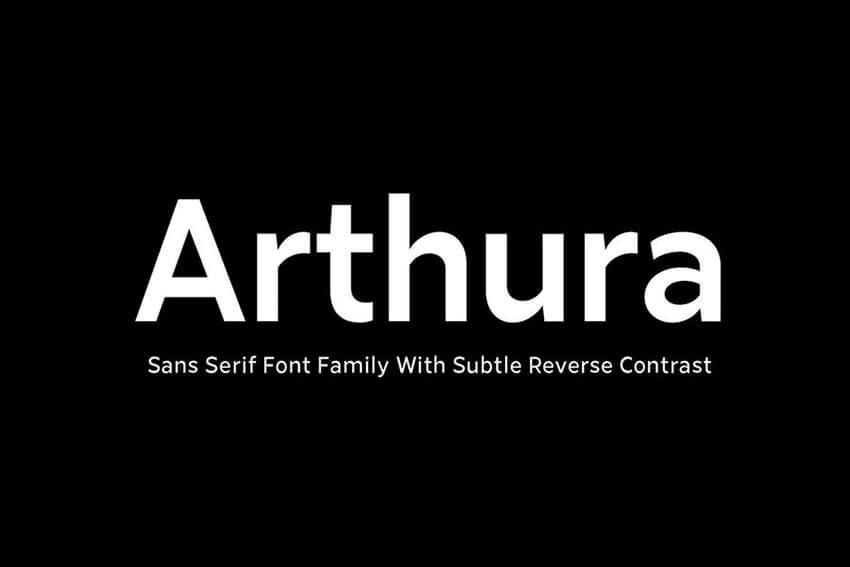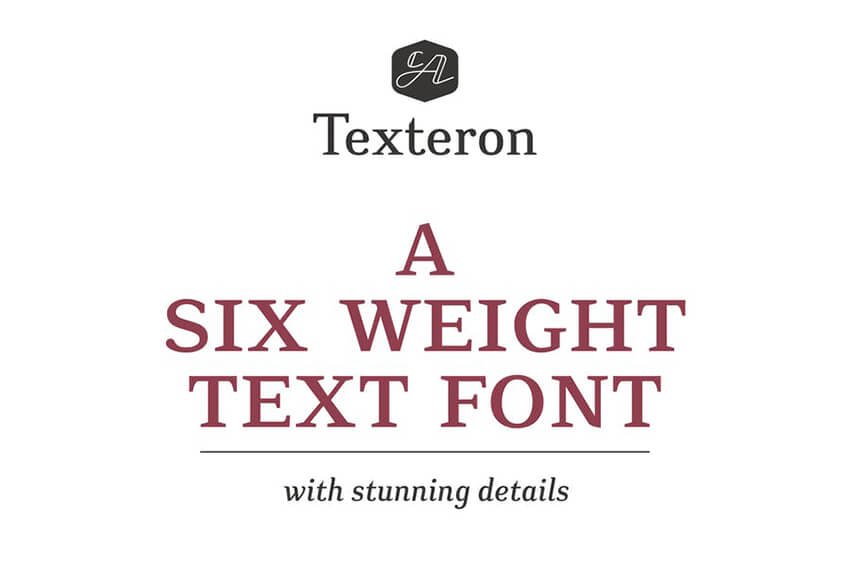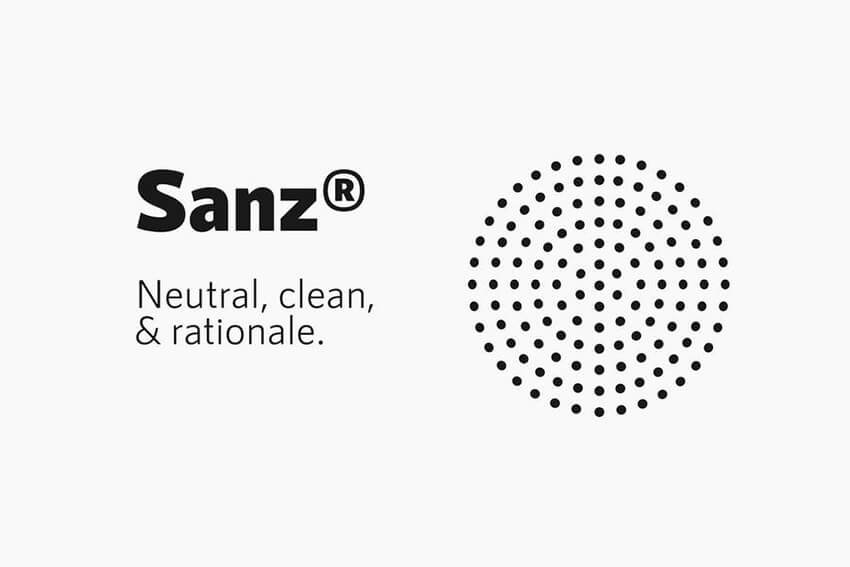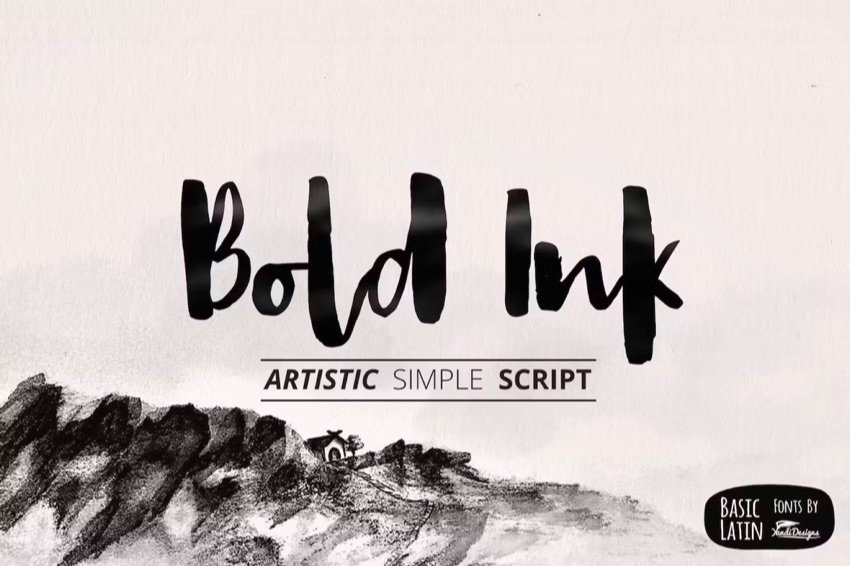
What Are the Best Fonts to Use in PowerPoint PPT Presentations? (Complete 2025 Guide)
What is the best font for PowerPoint presentations? Typography helps you set the tone. Learn the best font size and type for your PowerPoint slide decks.
If you’re giving a PowerPoint presentation, you’ve got many design decisions to make. One of those is choosing the best fonts for PowerPoint presentations. Typography sets the tone for your presentation and is instrumental in presenting your content.
So, what is the best font for PowerPoint presentations? In this tutorial, we’ll survey the best font for PowerPoint designs but leave plenty of room for creative choice.
We’ll discuss the best font size and type for PowerPoint presentations. Learn how you can use them to your advantage. You might be surprised how many PowerPoint font options exist.
Also, we’ll share some PowerPoint templates that make good use of the best fonts for presentations and typography.
Choose the Right Fonts for PowerPoint (Quickstart Guide)
Are you looking for the best PowerPoint fonts, but aren’t quite sure how to make the choice? The video below will help you make the choice.
To learn even more about fonts for PowerPoint and other presentations, continue reading the tutorial below.
The Essentials of Font Selection
Fonts for PowerPoint can take many forms. And with thousands of PowerPoint font options, it can be really hard to decide.
What style is right? How should you steer your PPT best font decisions? In this section, I’ll share some quick tips to help you choose the best PowerPoint font for you.
1. Understand the Types of Fonts
When you’re choosing the best font for PowerPoint slides, it’s key to learn some ground rules of style. And it helps to understand the basic types of fonts that you can choose from. In this section, we’ll discuss popular font styles:
• serif
• sans-serif
• script
• decorative
First, let’s cover serif fonts. Serif fonts, PowerPoint presentation or not, have a more classic feel to them. Serif fonts have brush strokes on the edges of the letters, sometimes called “feet.” These edge strokes are called serifs.
The popular system-installed serif fonts include Garamond, Georgia, and Times New Roman. They can definitely serve as some of the best fonts for presentations.
Adallyn serif font for PowerPoint
Serif fonts like Adallyn are the most professional font for PowerPoint presentations.
In 2025, the best fonts for PowerPoint presentations are sans-serif fonts. Sans means “without,” so it’s only natural that these fonts lack the edge strokes. The result is smooth, rounded fonts that are popular in modern design.
These two simple categories are useful to describe most fonts. But other choices might be the best font for your PowerPoint presentation. Script and decorative fonts are other unique options.
They may be right for special purpose presentations. But remember, while these fonts for PowerPoint may look elegant, they’re often hard to read. That’s a no-no for presenting.
Keep in mind: the best fonts for presentations are clear, crisp, and readable.
Bold ink PowerPoint font
Hand-painted fonts like Bold Ink aren’t the best PPT font for every occasion, but they certainly have their place in creative slide decks.
What is the best font for PowerPoint presentations? The answer is, “it depends.”
As always, let the content drive your design decisions. But as a general rule, sticking to serif and sans-serif designs helps you stay stylish. That way you won’t lose the focus of your audience by having text that’s too hard to read.
Formal presentations in ideal environments should opt for serif options. But most presentations should typically use sans-serif fonts. Those decorative PowerPoint options should be used sparingly at most.
2. Choose Font Sizes for Your PowerPoint Presentation
For the best use of PowerPoint fonts, it’s crucial to consider your choice of font size. Many PowerPoint users will ask, “What is a good font size for PowerPoint presentations?
In reality, you should vary your font size based on the content that you’re presenting. Headlines should always be larger than the supporting points, for example.
My rule of thumb for PowerPoint fonts is to use a size 32 or larger for headlines, with 24 or larger for supporting points. Go much smaller than that, and you’re entering “only readable for printouts” territory.
Font size goes hand-in-hand with the principle of “less is more” on your PowerPoint slides. When you don’t have to cram tons of content onto your slide, you can use larger font sizes.
Remember: your PowerPoint presentation should support you, not speak for you.
3. Use Font Pairings
Many graphic designers use more than one font when building PowerPoint presentations. Using more than a few fonts is over the top but combining two complementary font choices is a pro design move.